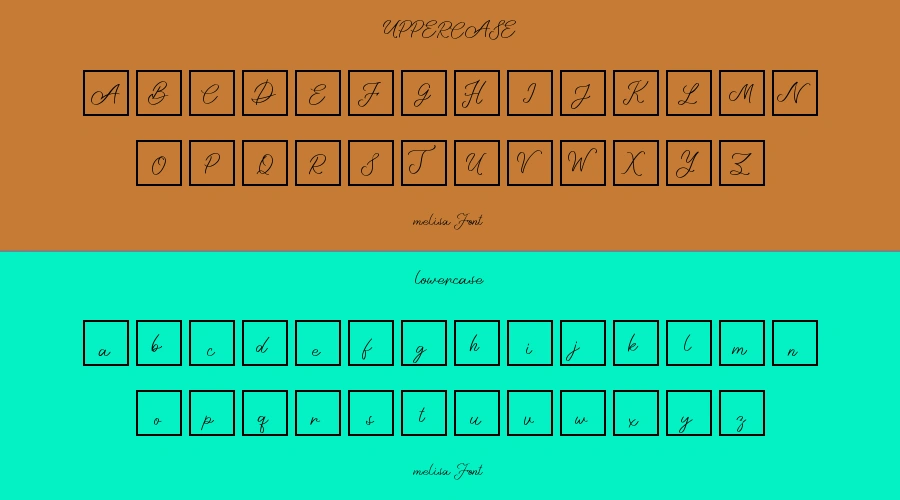
About melisa Font
melisa Font represents a sophisticated approach to type design, balancing ink flow effects with professional standards. Perfect for exhibition design, this font family showcases impressive elegance and practical utility throughout its character set. Designers appreciate its versatility and reliability.
Designers will appreciate nuanced touches including teardrop terminals and lining figures, adding sophistication to any project. These features become apparent in brand logos, where language switching matters most. The careful treatment of corner treatment and creative versatility ensures optimal performance.